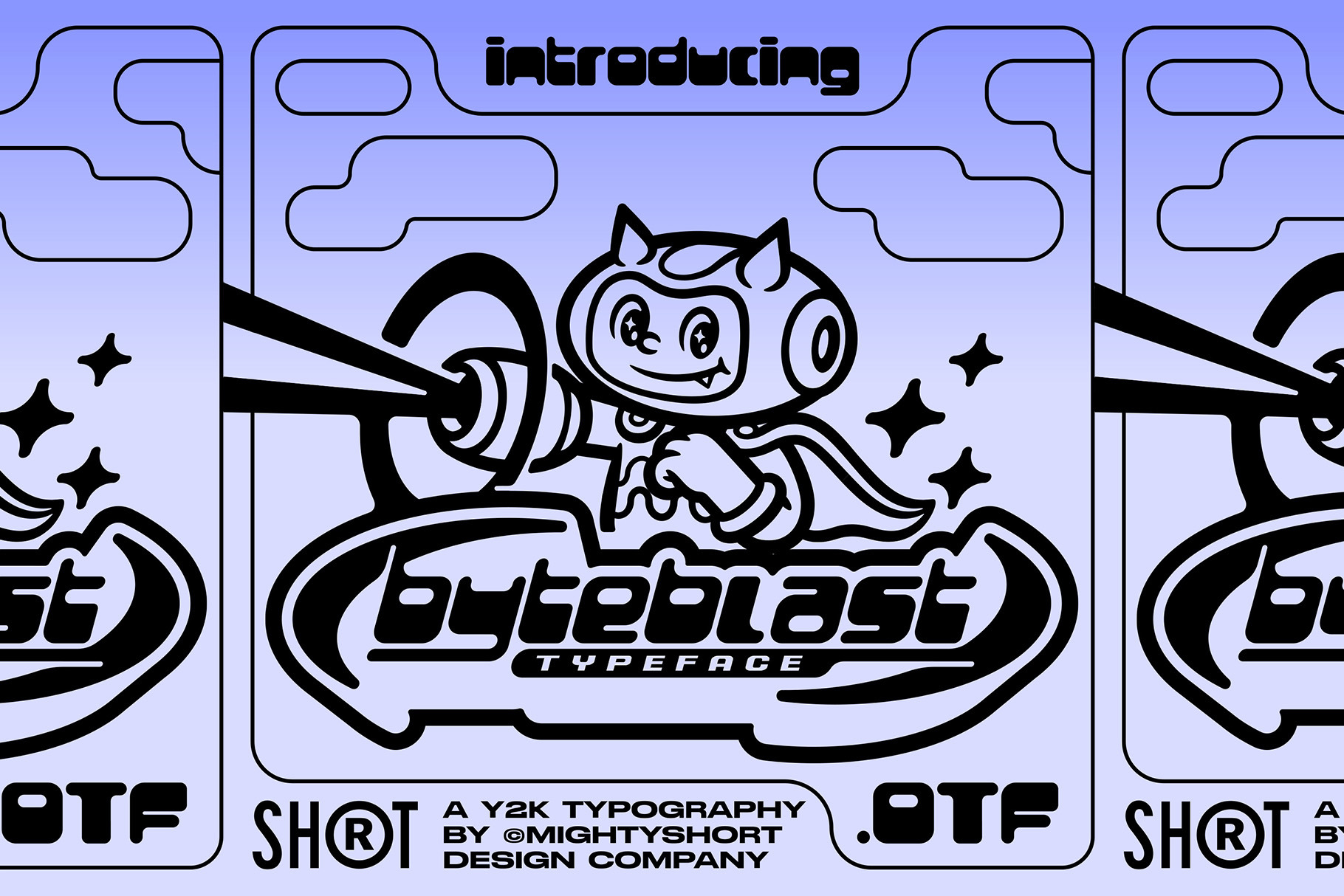
Byteblast Typeface
Introducing "ByteBlast" - a font inspired by Y2K aesthetics and futuristic digital landscapes. This typeface captures the essence of modernity and innovation.
ByteBlast offers a wide range of character sets, including uppercase, plenty of alternates, numerals, punctuation marks, and some cool symbols, ensuring versatility and adaptability for various design needs. The typeface includes 2 fonts “ByteBlast Regular” and “Byteblast Slant”
Perfect for websites, apps, logos, and more, ByteBlast infuses your designs with a cyberpunk vibe and a touch of technical sophistication. Unleash the power of digital nostalgia with ByteBlast and embark on an electrifying typographic journey where pixels meet emotions.